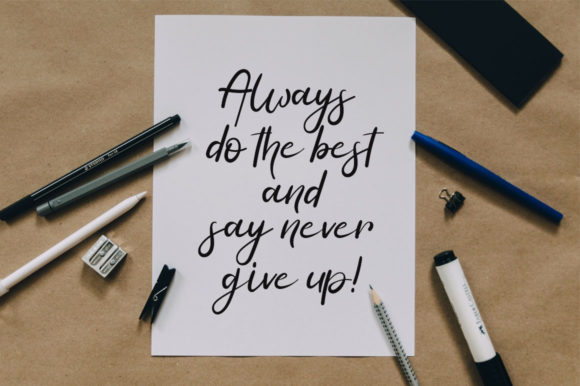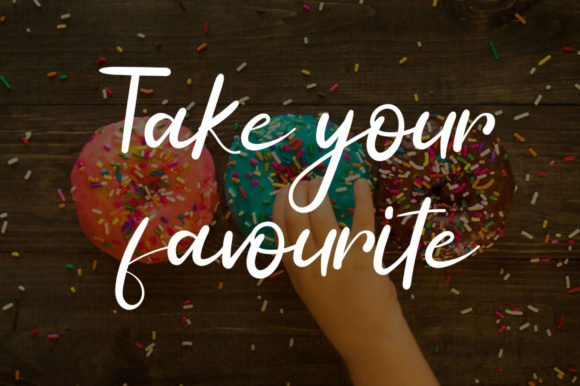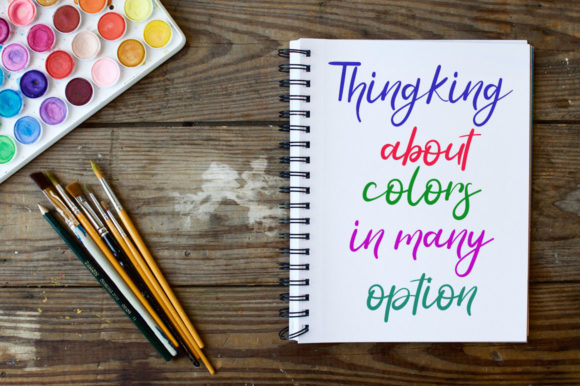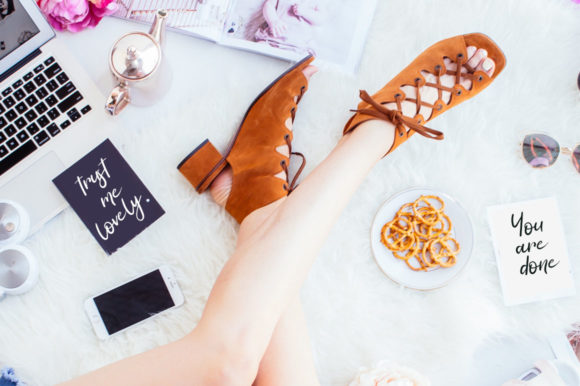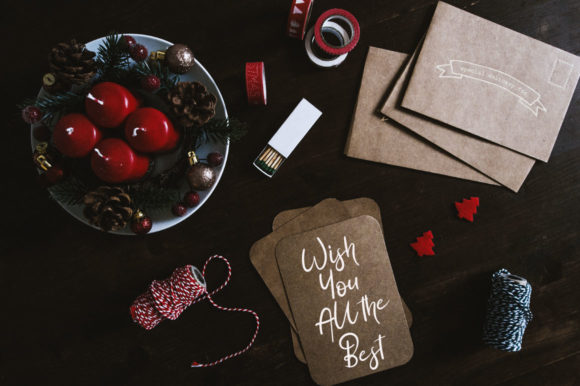
Discover the Elegance of Hasella Script Font: Elevate Your Designs with a Personal Touch
In the world of typography, few fonts manage to strike a balance between simplicity and elegance as effortlessly as the Hasella Script Font. This hand-lettered typeface has been gaining popularity among designers and crafters for its unique ability to add a personal touch to any design project. Whether you’re working on greeting cards, branding materials, stationery designs, or social media content, Hasella is the perfect choice for those looking to make a statement.
The Charm of Hand-Lettered Typography
Hand-lettered typography has a way of connecting with audiences on a more personal level. It breaks away from the uniformity of digital fonts, offering a sense of warmth and authenticity that is hard to replicate. The Hasella Script Font embodies this charm, bringing a human element to your designs that can make them stand out in a crowded digital landscape.
Key Features of Hasella Script Font
- Simple yet Elegant: Hasella boasts a simple design that belies its elegant feel. This makes it versatile enough to be used in a variety of projects, from formal invitations to playful greeting cards.
- Unique Character: Each letter in the Hasella font is carefully crafted, ensuring that your designs have a unique character that sets them apart.
- High Versatility: Its adaptability is one of Hasella’s strongest points. It can be used for both digital and print designs, making it a valuable addition to any designer’s toolkit.
- Perfect for Branding: For businesses looking to establish a personal brand voice, Hasella offers a way to add warmth and personality to branding materials.
Applications of Hasella Script Font
The versatility of Hasella Script Font means it can be used in a wide range of applications. Here are some of the most popular uses:
- Greeting Cards: Add a personal touch to your greeting cards, making them memorable for the recipient.
- Branding: Use Hasella to give your brand a personal and approachable feel, helping to connect with your audience on a more intimate level.
- Stationery Design: Elevate your stationery designs with a font that exudes elegance and sophistication.
- Social Media: Stand out on social media platforms with eye-catching text that showcases your unique style.
Tips for Using Hasella Script Font Effectively
To get the most out of Hasella Script Font, consider the following tips:
- Mix and Match: Don’t be afraid to combine Hasella with other fonts to create visual interest. Its elegant style pairs well with a variety of typefaces.
- Play with Sizes: Using different sizes of the Hasella font can add depth and hierarchy to your designs.
- Color Matters: Experiment with different colors to find the perfect match for your design. Hasella looks stunning in both bold and pastel colors.
The Hasella Script Font is a powerful tool for designers and crafters looking to add a personal touch to their work. Its simple yet elegant style makes it perfect for a wide range of projects, from greeting cards and branding to stationery design and social media content. By incorporating Hasella into your designs, you can create unique and memorable pieces that stand out in any context. So, why settle for ordinary when you can make your designs extraordinary with the charm of Hasella Script Font?